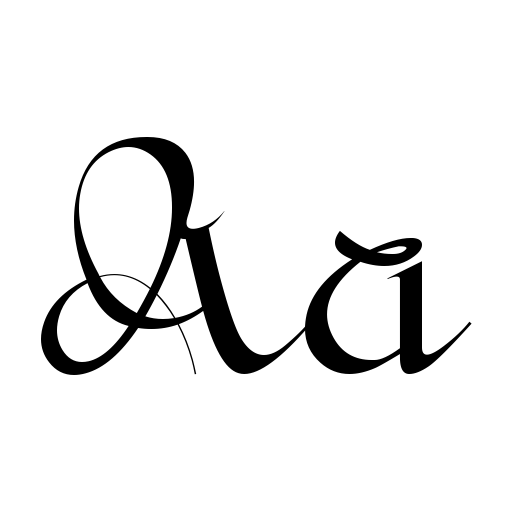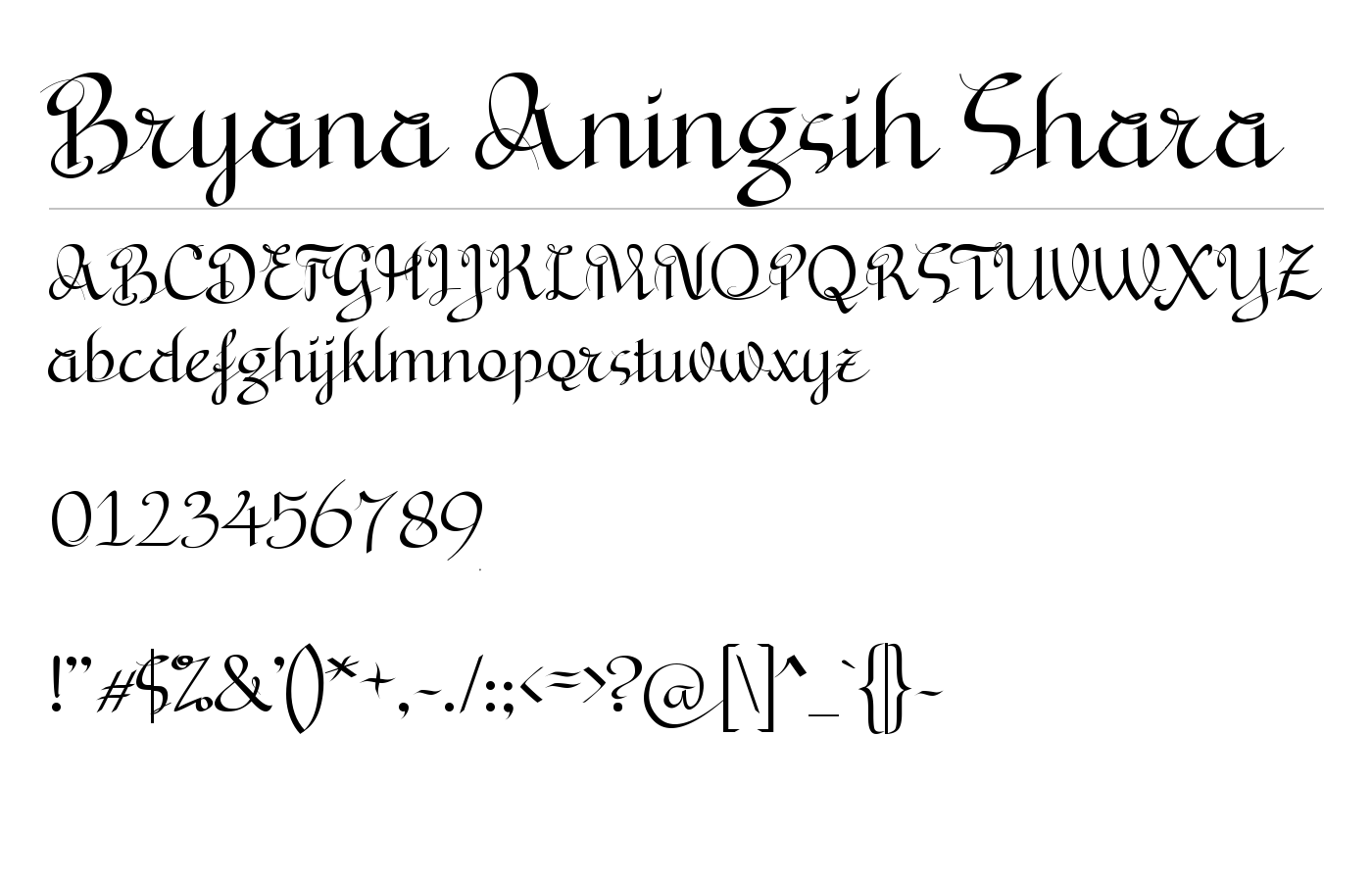
Bryana Aningsih Shara is an elegant serif font with a distinctive calligraphic style, featuring delicate strokes and ornate swashes that lend it a sophisticated, artistic flair. Its refined details and graceful curves make it ideal for luxury branding, wedding invitations, and decorative headlines where a touch of classic beauty and personality is desired. This font shines in contexts that require a formal yet creative feel, adding charm and elegance to any design.
Bryana Aningsih Shara Font
About Bryana Aningsih Shara Font